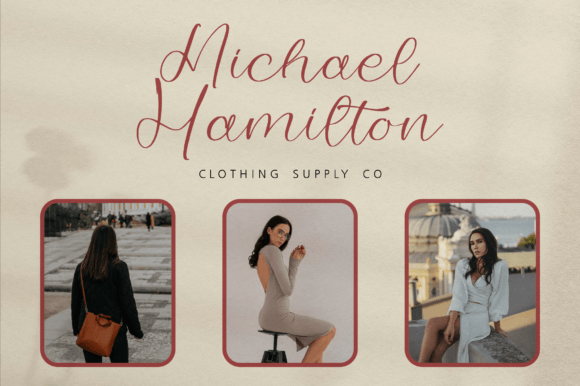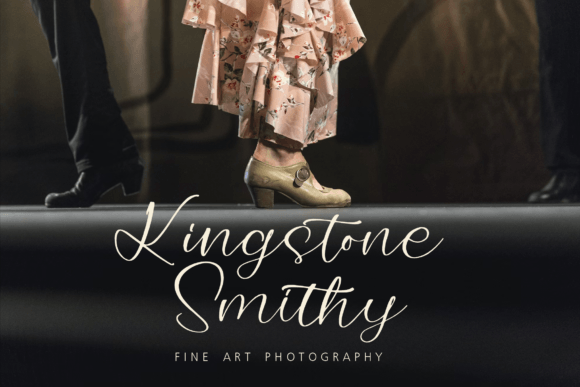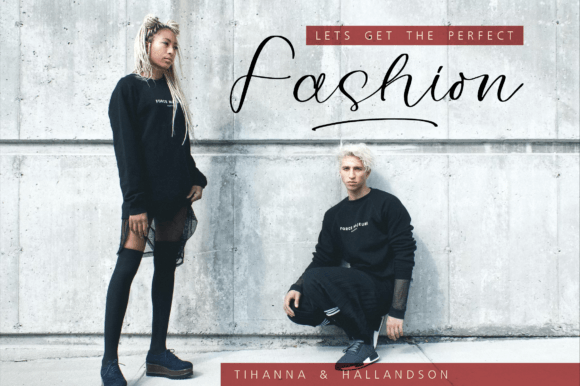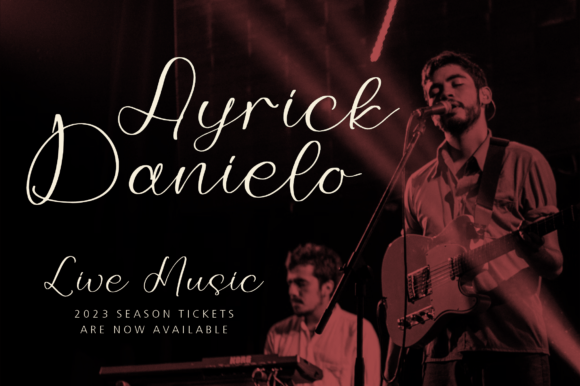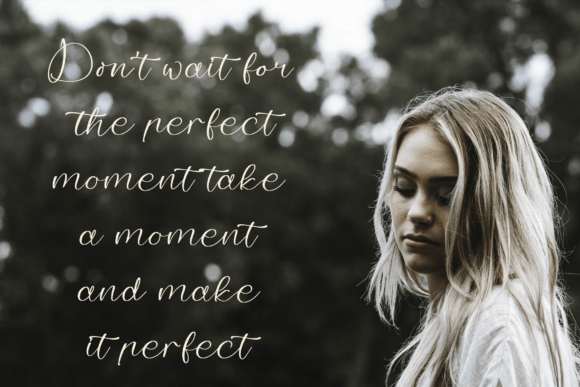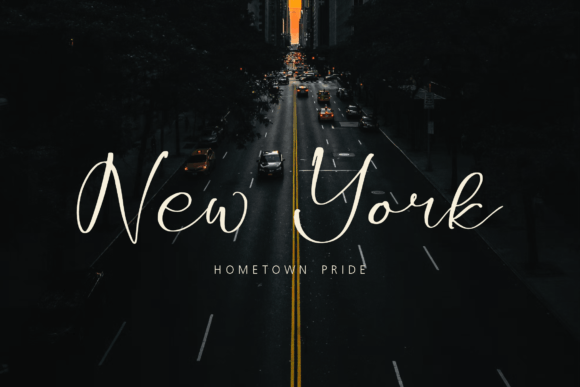
Introduction to Matdislla Cleverly Font Font
Fonts play a crucial role in design, and the Matdislla Cleverly Font font is a typeface that brings both character and versatility to any project. Whether you’re working on a branding project, a website, or a print design, the Matdislla Cleverly Font font offers a unique style that can elevate your work.
Matdislla Cleverly is a flowing handwritten script font.
Whether you’re using it for crafts, digital design, presentations, or making greeting cards, this font has the potential to become your favorite go-to font, no matter the occasion .
Key Features of Matdislla Cleverly Font Font
Why Choose Matdislla Cleverly Font Font?
The Matdislla Cleverly Font font is more than just a typeface – it’s a design tool that helps you communicate your message with style and clarity. Its unique character set and versatile design make it suitable for a wide range of applications, from elegant invitations to bold headlines.
With its carefully crafted letterforms and balanced proportions, the Matdislla Cleverly Font font ensures readability and visual appeal across all mediums.
What makes Matdislla Cleverly Font font special?
The Matdislla Cleverly Font font stands out with its unique design, exceptional readability, and versatility across various design applications.